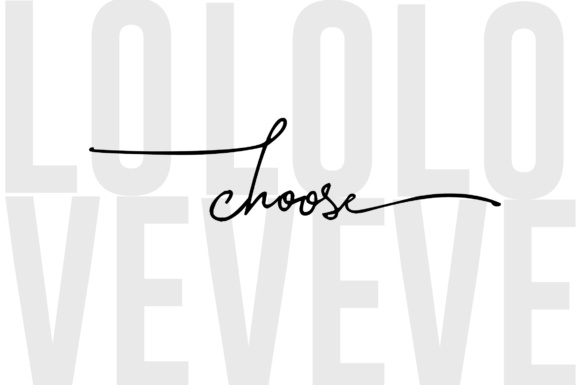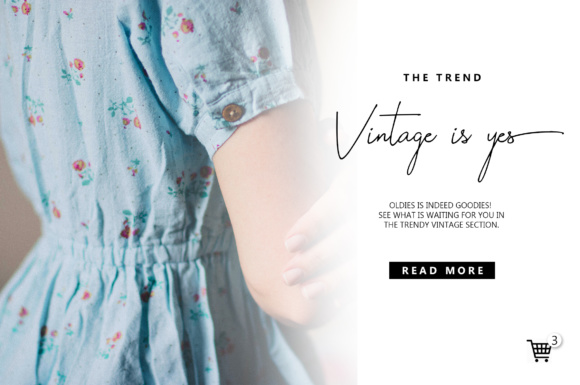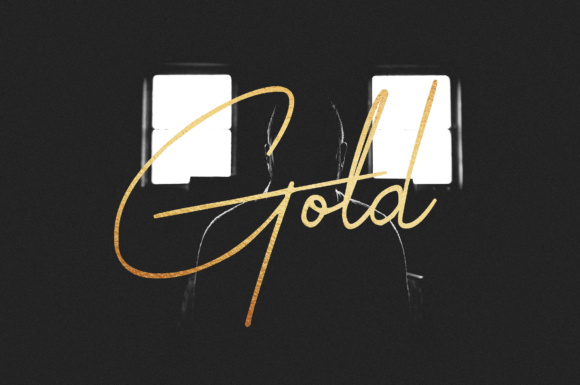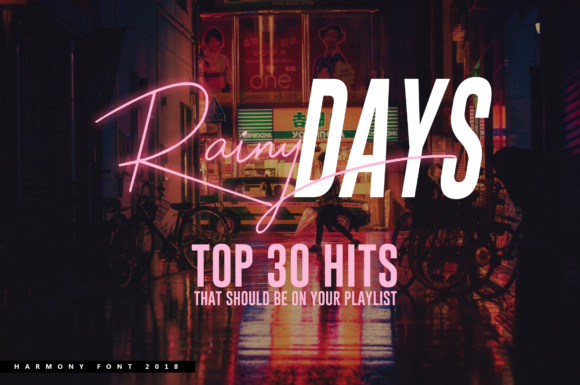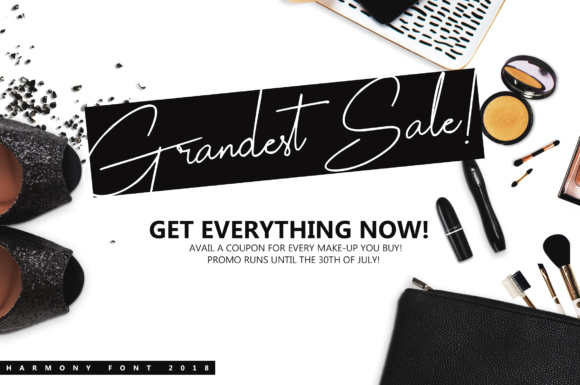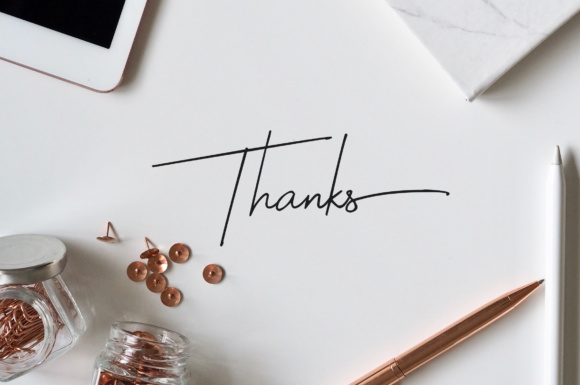
Introducing Harmony Script Font: Elevate Your Designs with Elegance
In the world of typography, a font can make or break a design. For those seeking a touch of elegance and sophistication, the Harmony Script Font is a game-changer. This versatile script font is designed to meet the needs of various design projects, offering a signature style that is sure to satisfy your creative cravings.
What is Harmony Script Font?
Harmony is a carefully crafted script font, boasting a unique and distinctive style that sets it apart from other fonts. Its flowing lines, intricate details, and beautiful swashes make it an ideal choice for designers looking to add a touch of luxury and refinement to their work.
The Harmony Script Font is incredibly versatile, making it suitable for a wide range of design applications. Whether you’re working on:
- Blogs: Add a touch of personality to your blog’s title or headings with Harmony’s elegant script.
- Photography: Use Harmony to create beautiful captions or watermarks for your photos.
- Murals: Harmony is perfect for creating stunning murals, adding a touch of sophistication to any wall art.
- Calligraphy: With its intricate details and flowing lines, Harmony is a great choice for calligraphy projects.
- Graphic Designs: Use Harmony to create eye-catching logos, brochures, or business cards.
- Weddings: Add a touch of romance to your wedding invitations, stationery, or decorations with Harmony’s beautiful script.
Why Choose Harmony Script Font?
So, what makes Harmony Script Font a top choice among designers? Here are just a few reasons:
- Unique Style: Harmony’s signature style is unlike any other font, ensuring your designs stand out from the crowd.
- Elegance and Sophistication: Add a touch of luxury and refinement to your designs with Harmony’s elegant script.
- Versatility: Use Harmony for a wide range of design projects, from blogs to weddings.
- Easy to Read: Despite its intricate details, Harmony is surprisingly easy to read, making it perfect for body text or captions.
Tips for Using Harmony Script Font
To get the most out of Harmony Script Font, here are a few tips:
- Pair with a sans-serif font: Combine Harmony with a clean sans-serif font for a beautiful contrast.
- Experiment with swashes: Harmony’s swashes can add a touch of elegance to your designs. Experiment with different swash styles to find the perfect fit.
- Use for headlines and titles: Harmony’s script font is perfect for headlines and titles, adding a touch of sophistication to your designs.
In conclusion, the Harmony Script Font is a versatile and elegant font that can elevate your designs to the next level. With its unique style, endless design possibilities, and ease of use, Harmony is a must-have for any designer or crafter looking to add a touch of sophistication to their work. Whether you’re working on a blog, photography project, or wedding design, Harmony Script Font is the perfect choice.